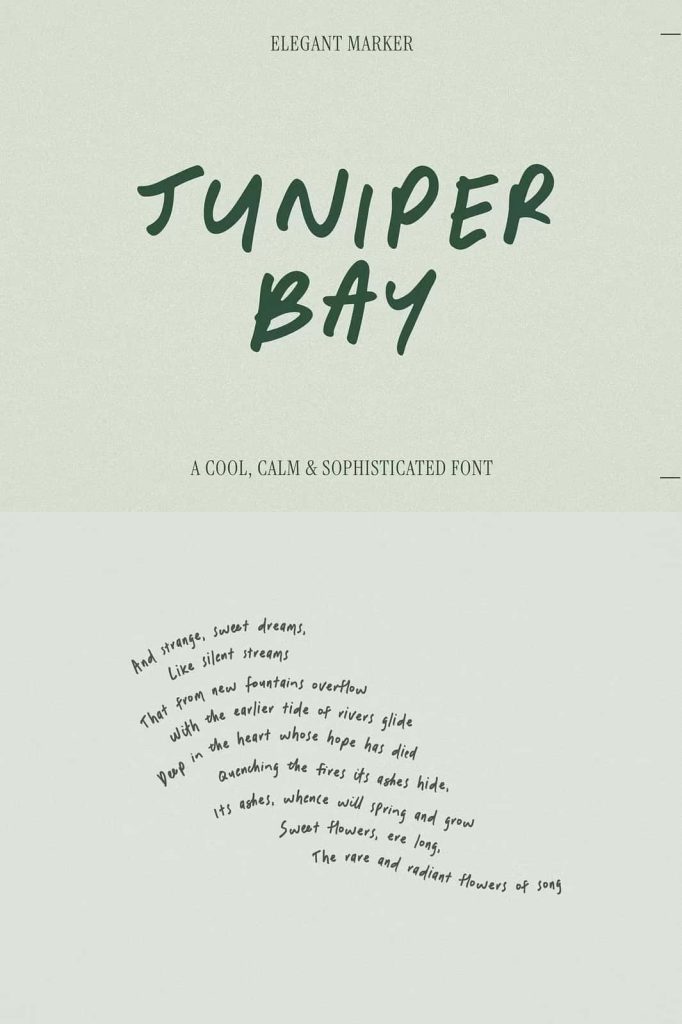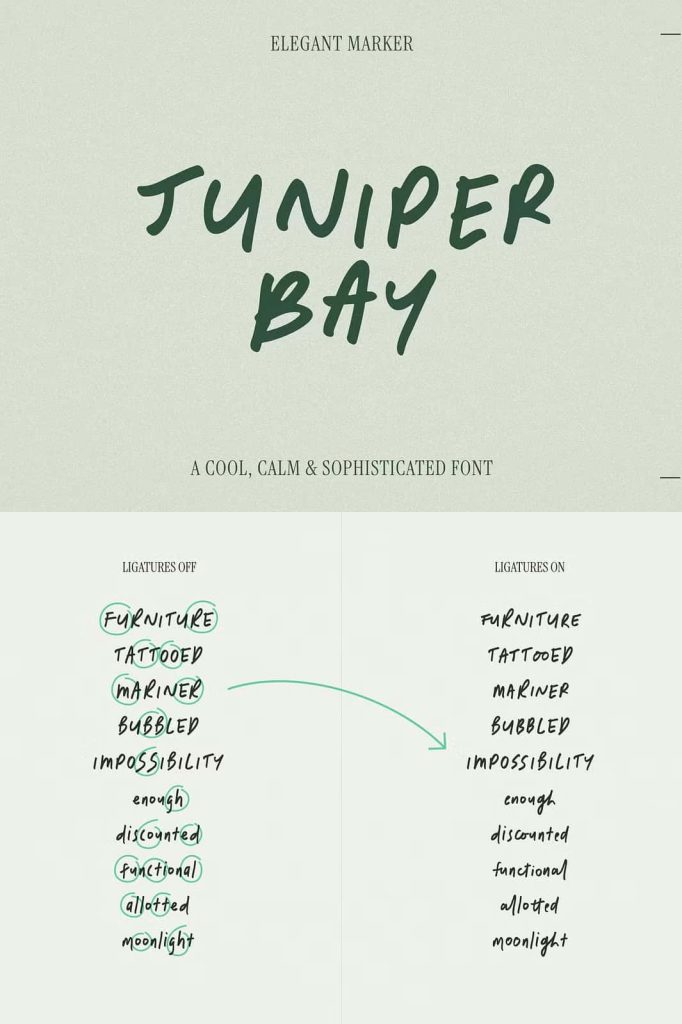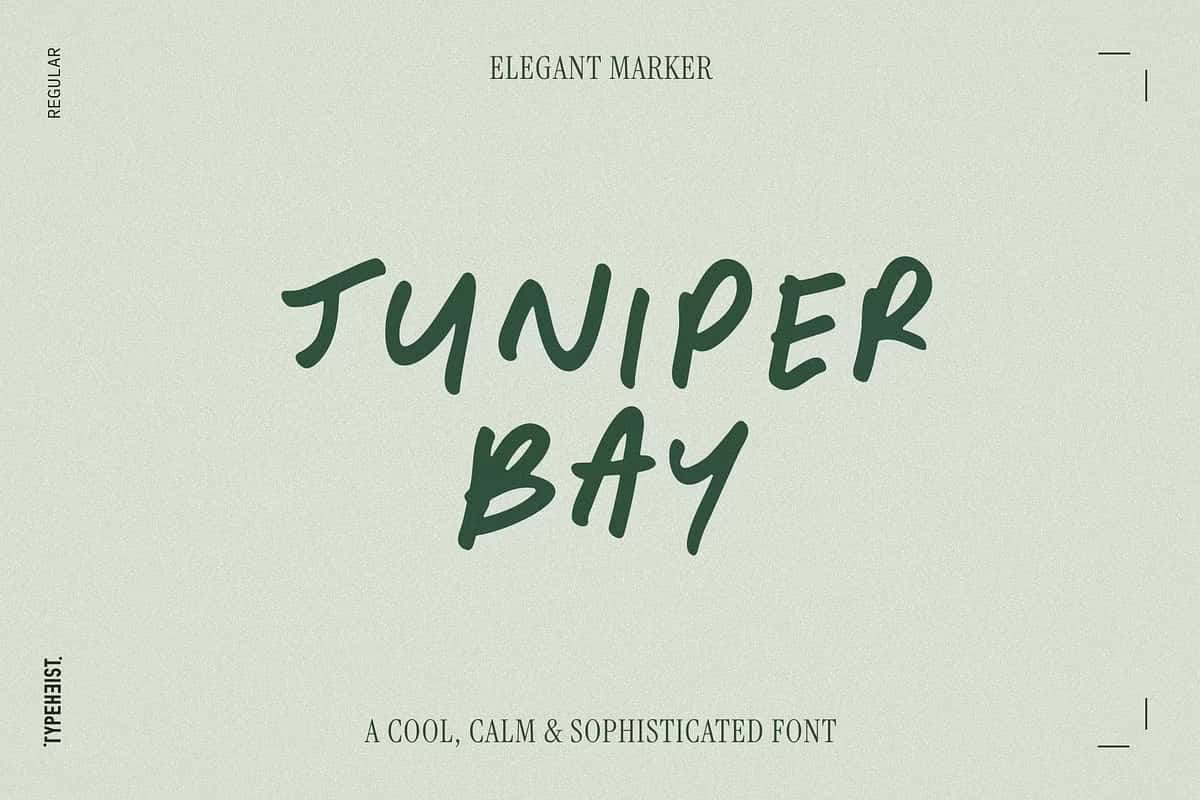
Juniper Bay Handwriting FontcoreografyMay 12, 2025Fonts Juniper Bay is a cool, calm & sophisticated marker typeface with an organic feel and effortless vibe. Download